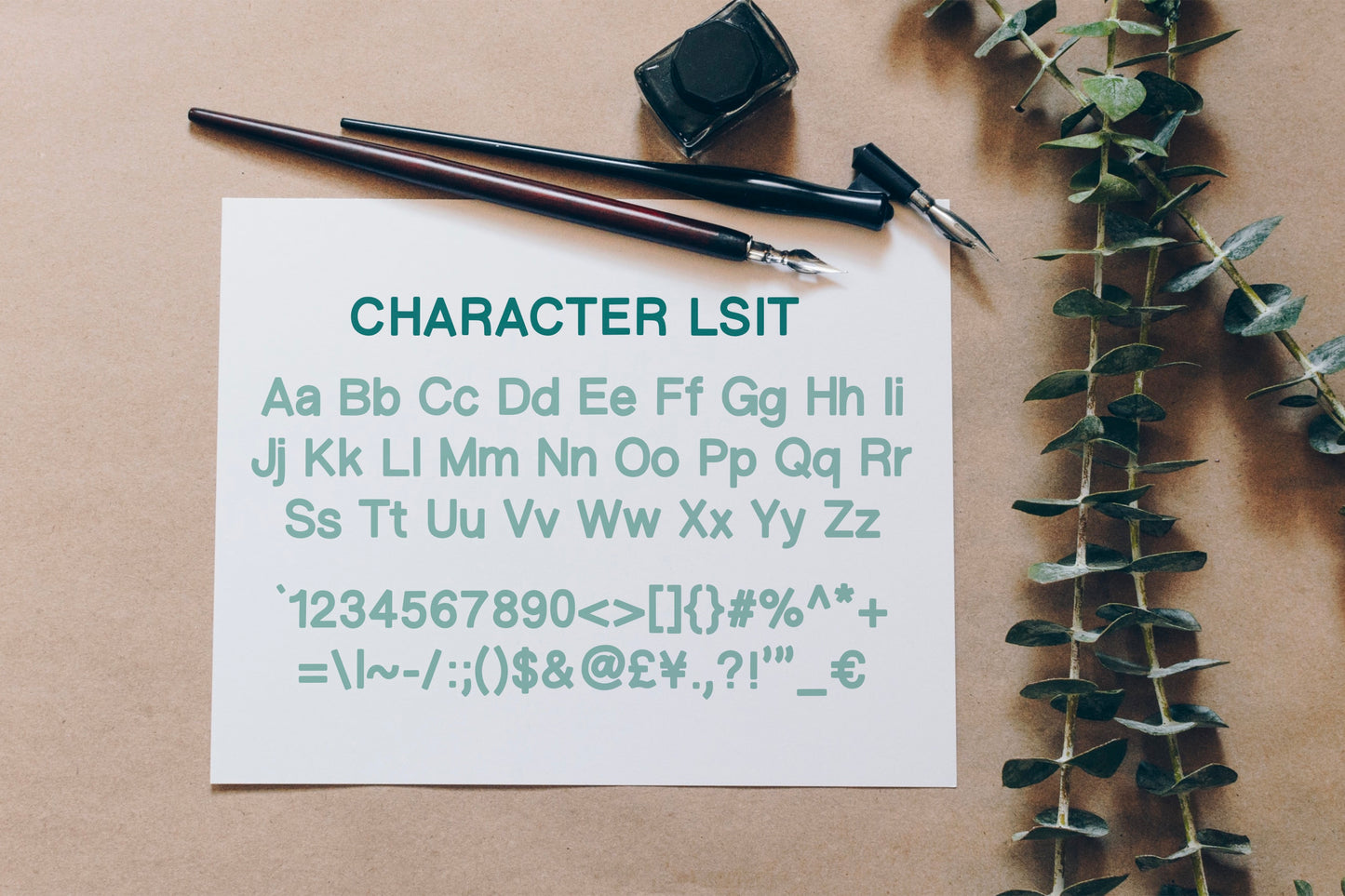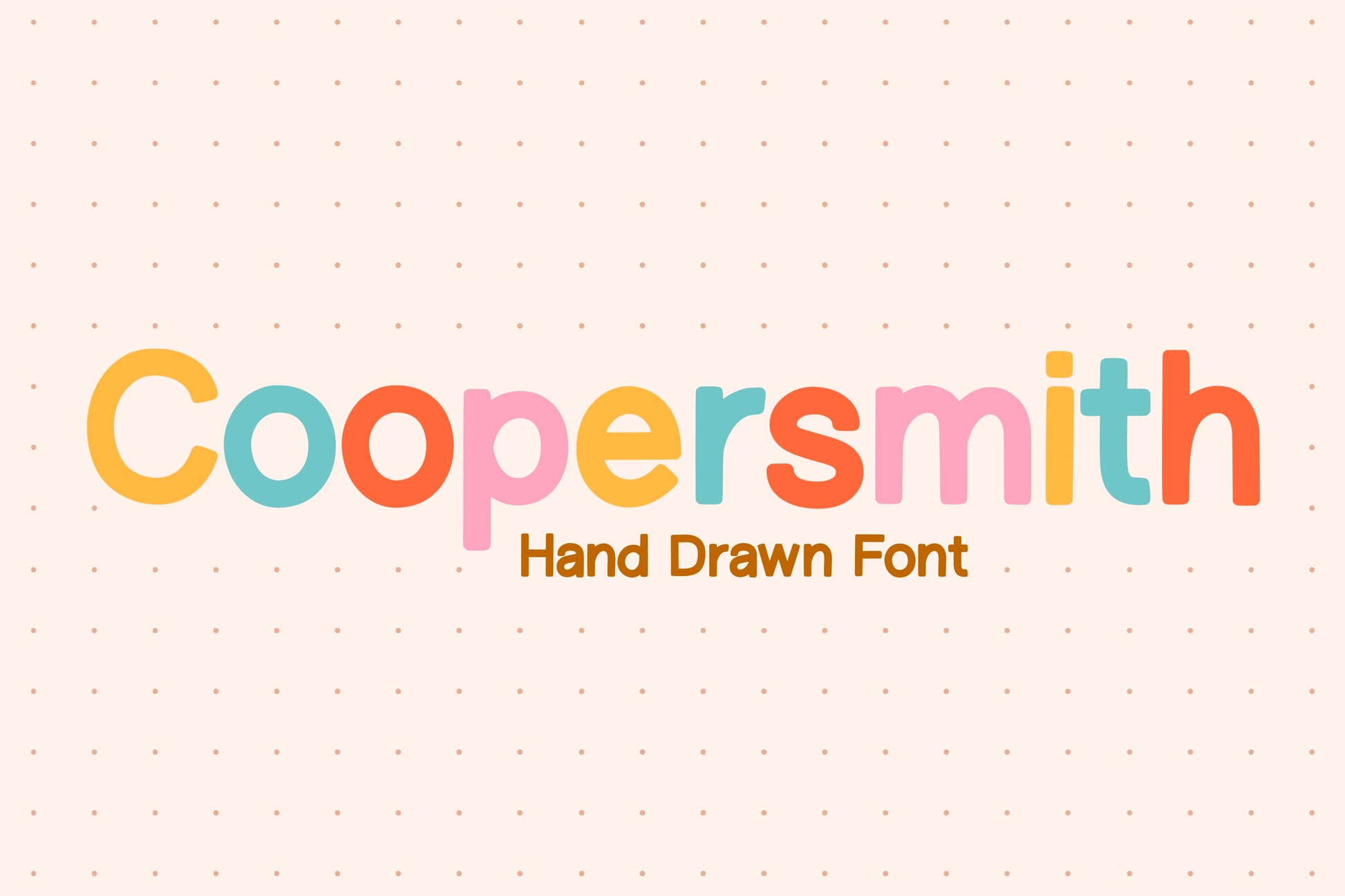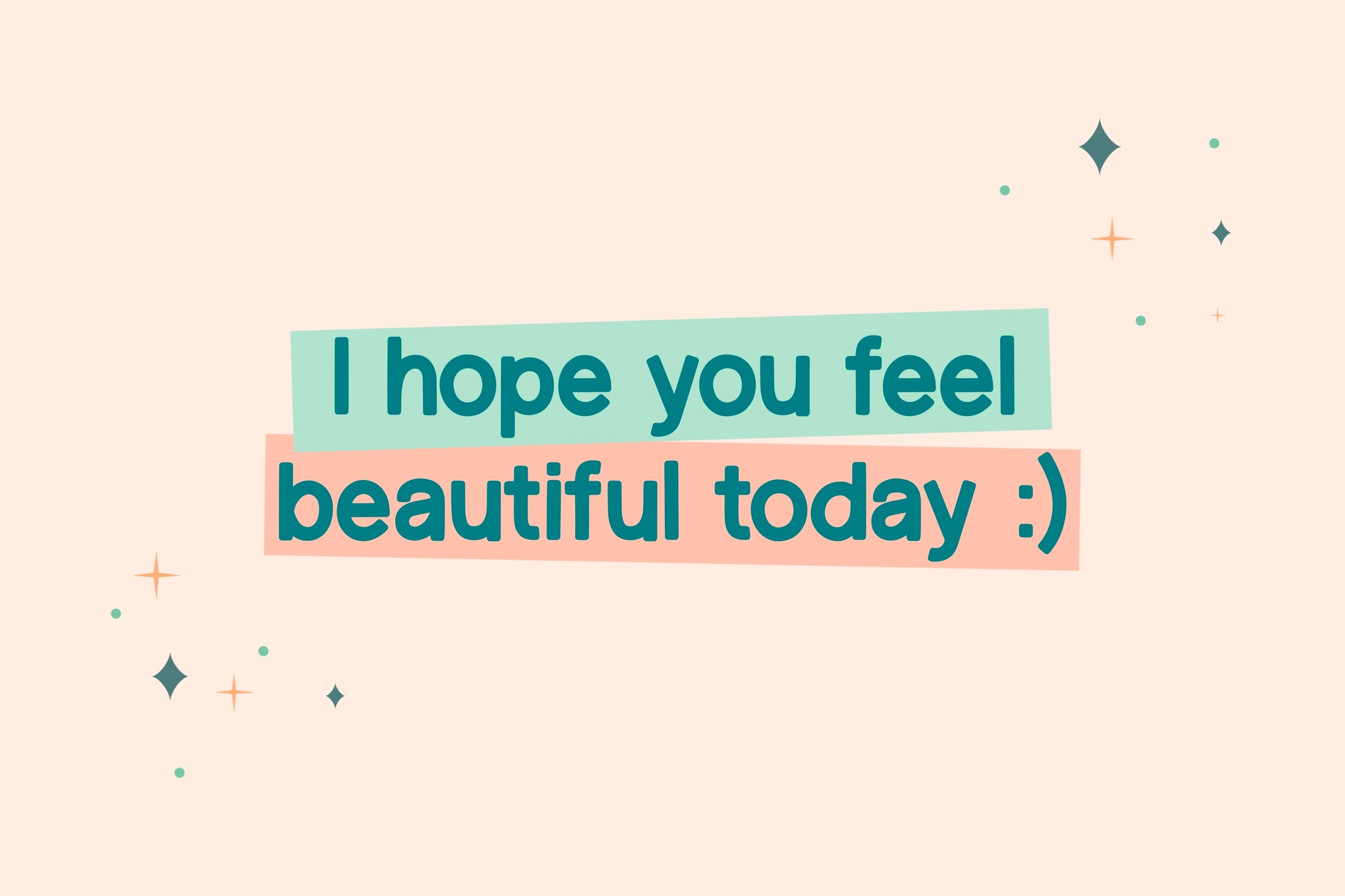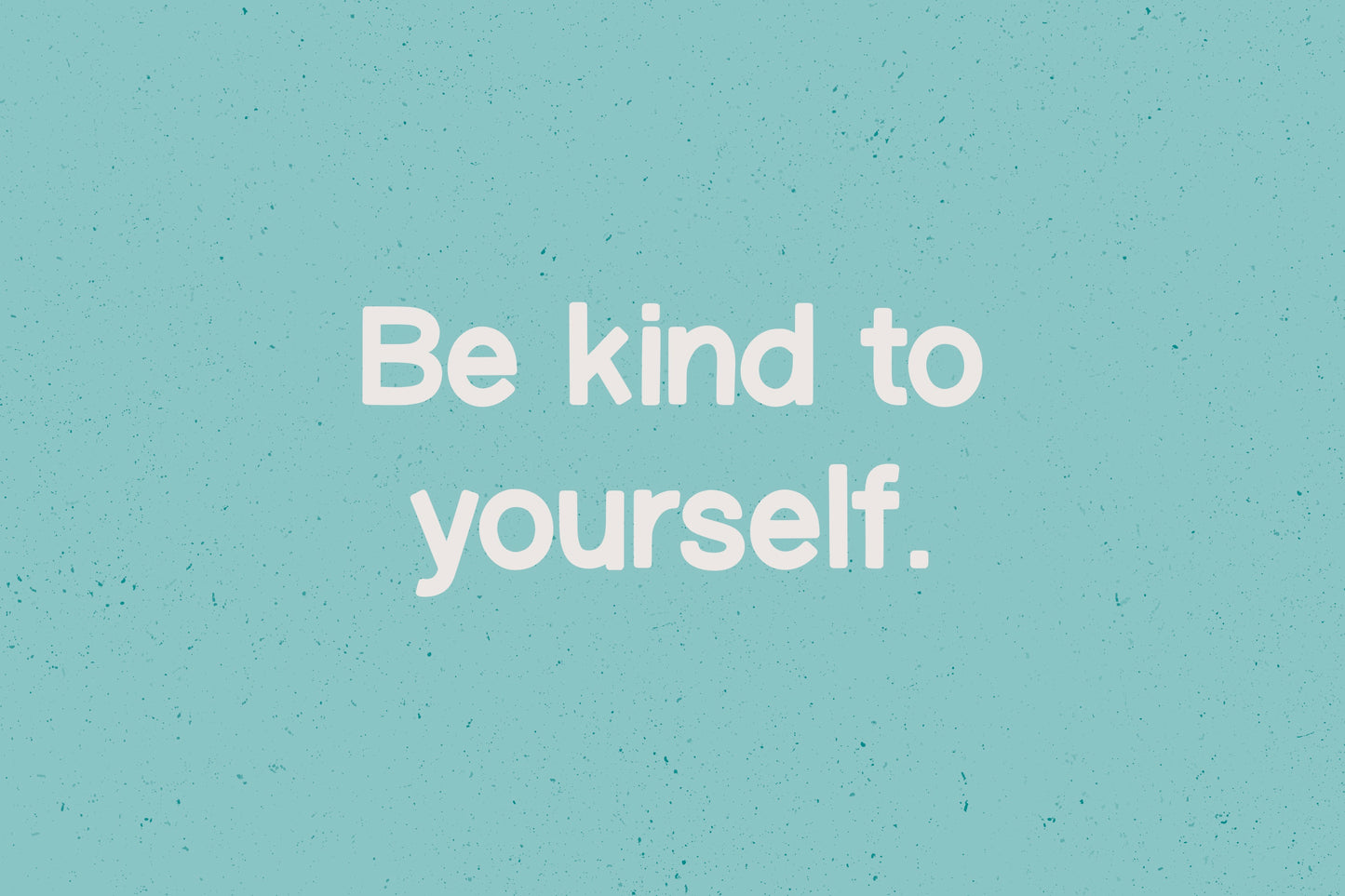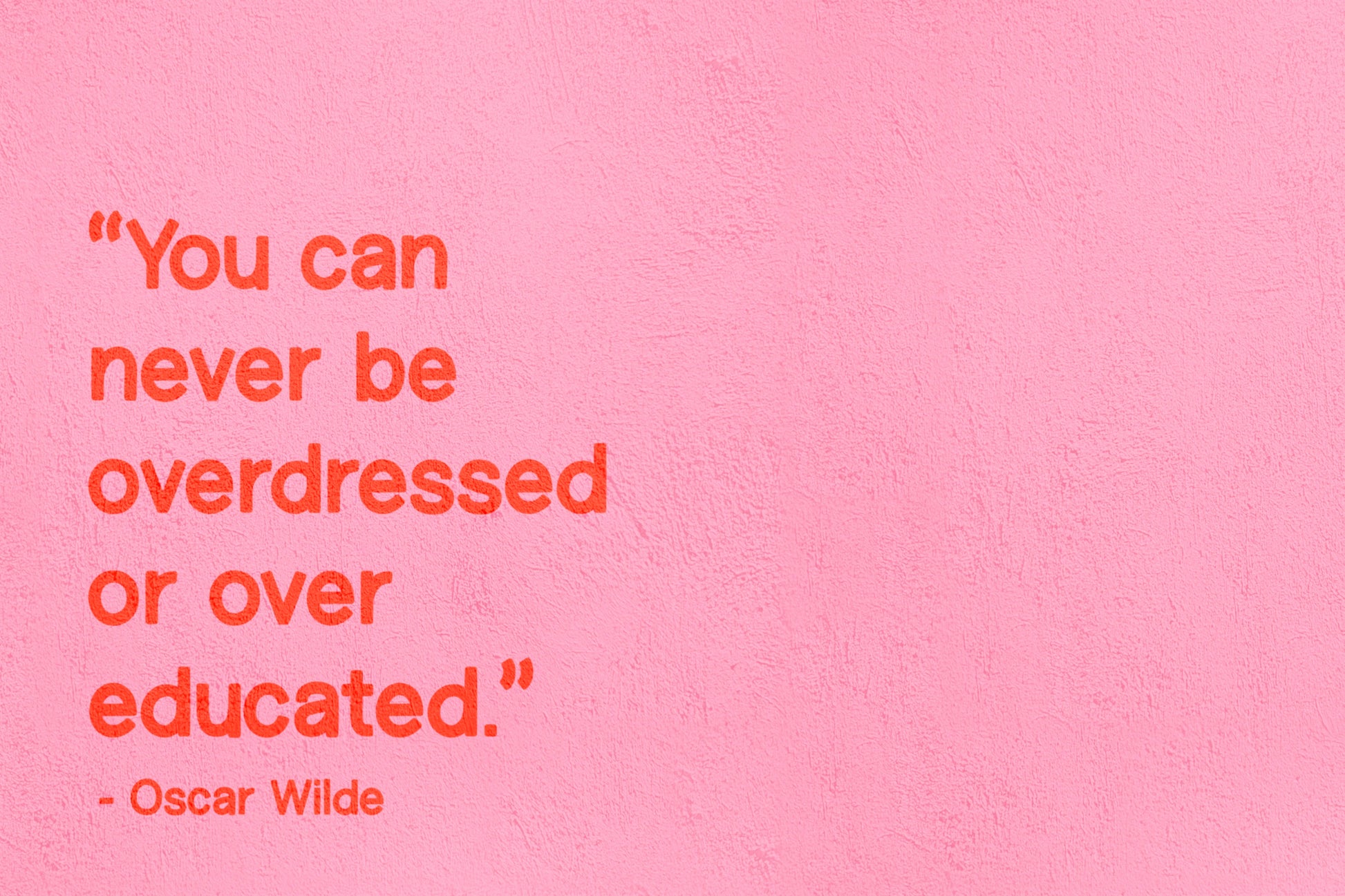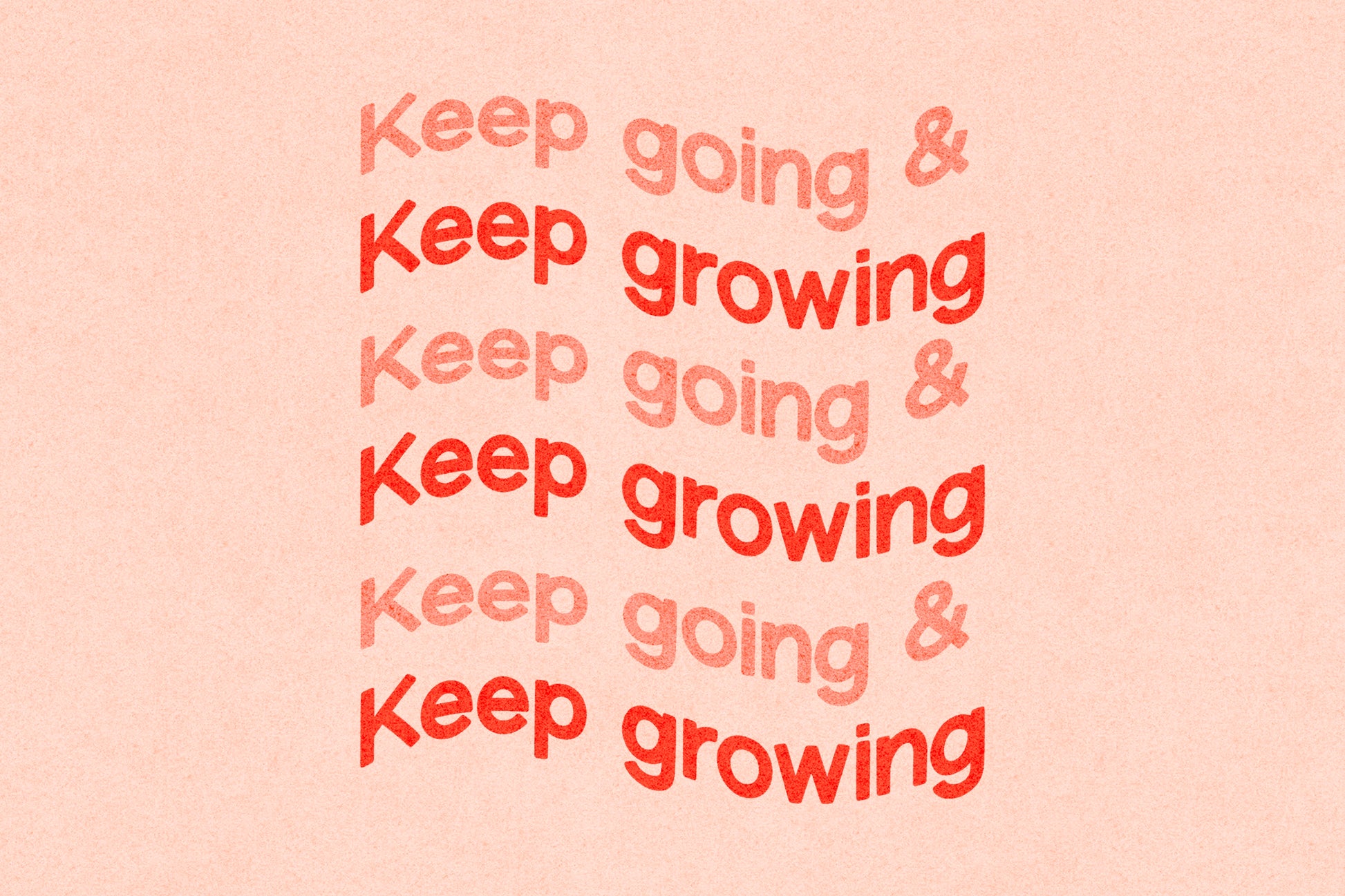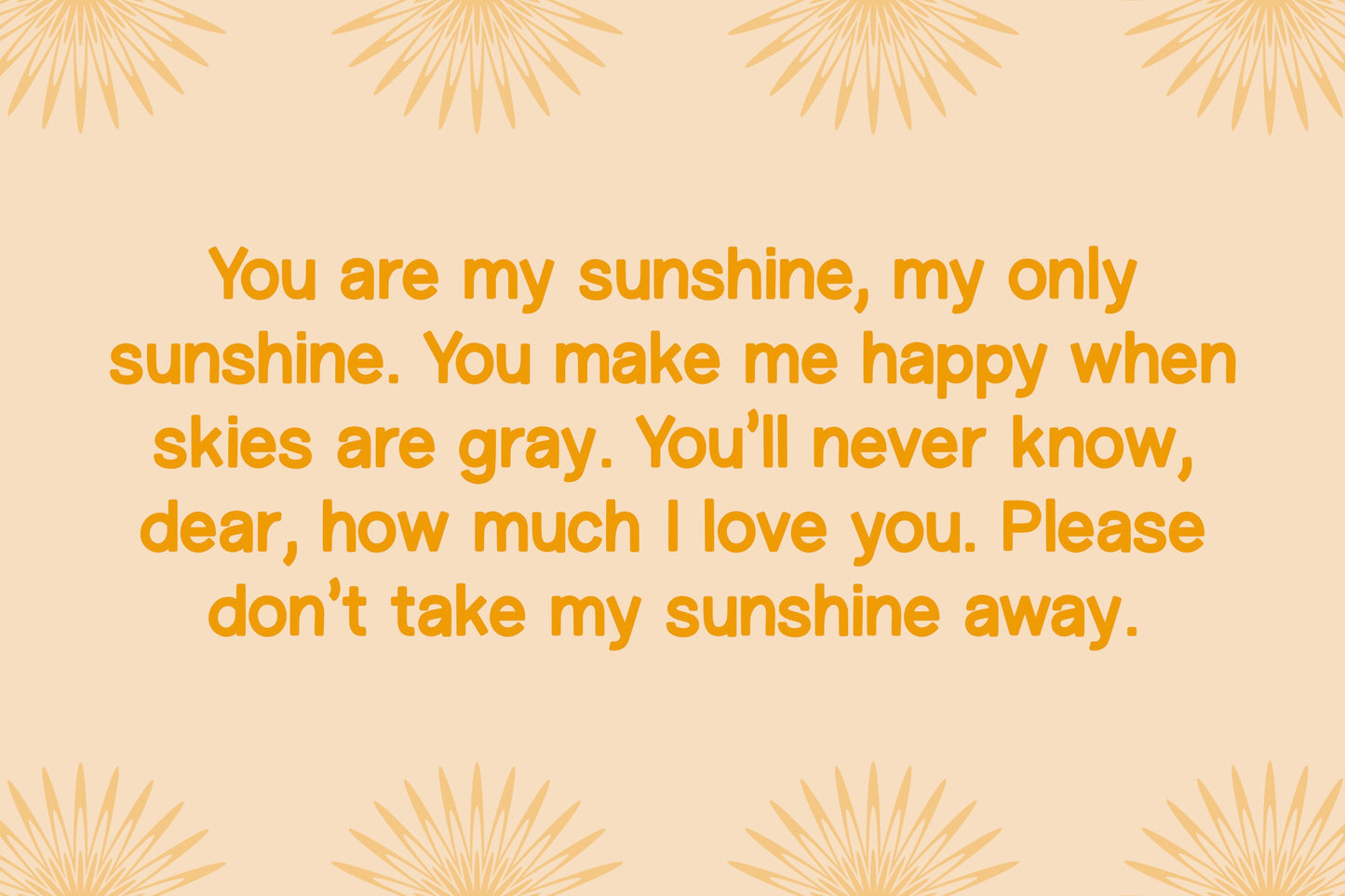
Coopersmith Hand Drawn Font
This is my Coopersmith handwritten/hand drawn font. Coopersmith is a cute, bold, & playful font perfect for branding, posters, t-shirts, stickers, wall art, and any design you can think of.